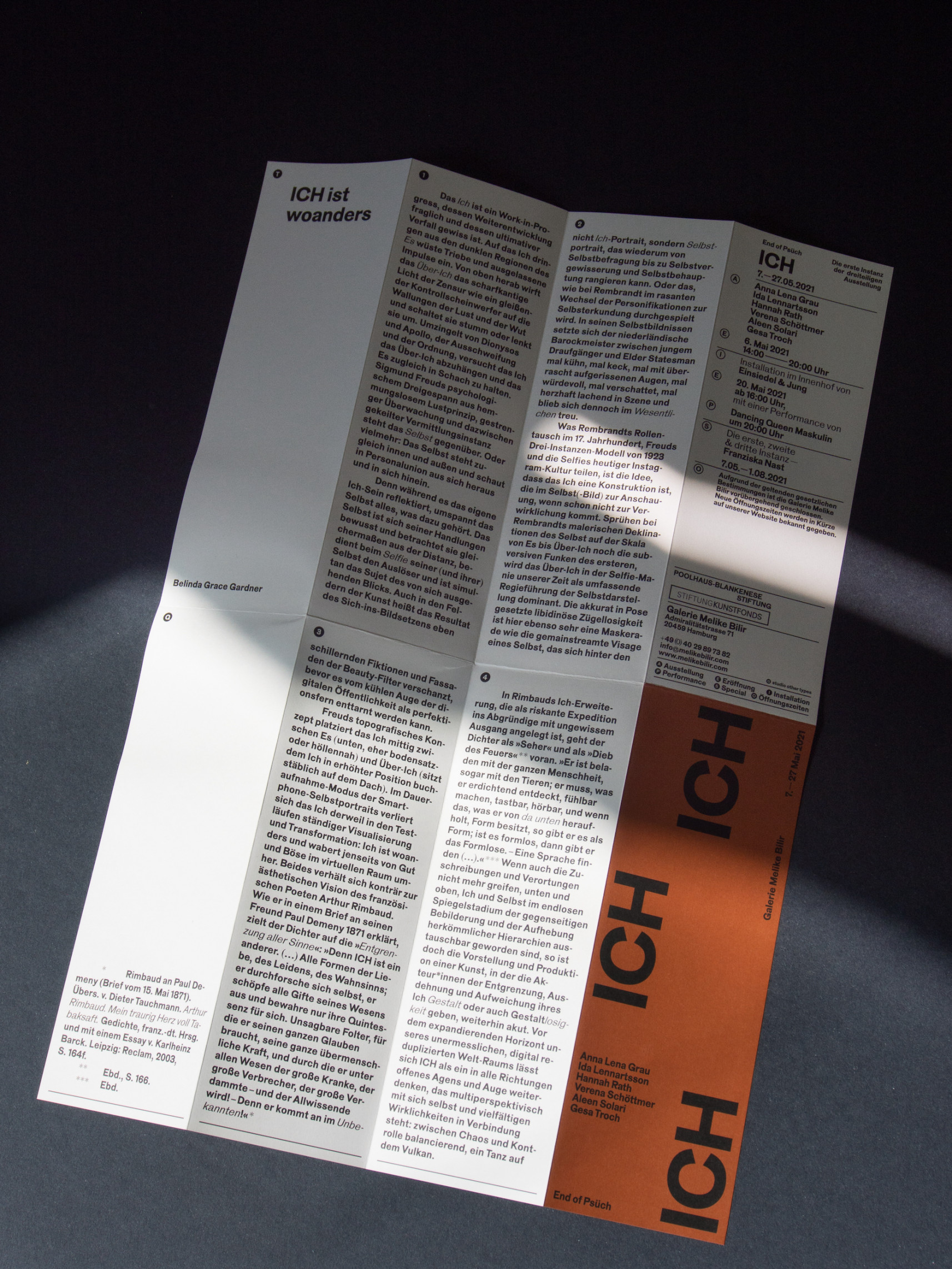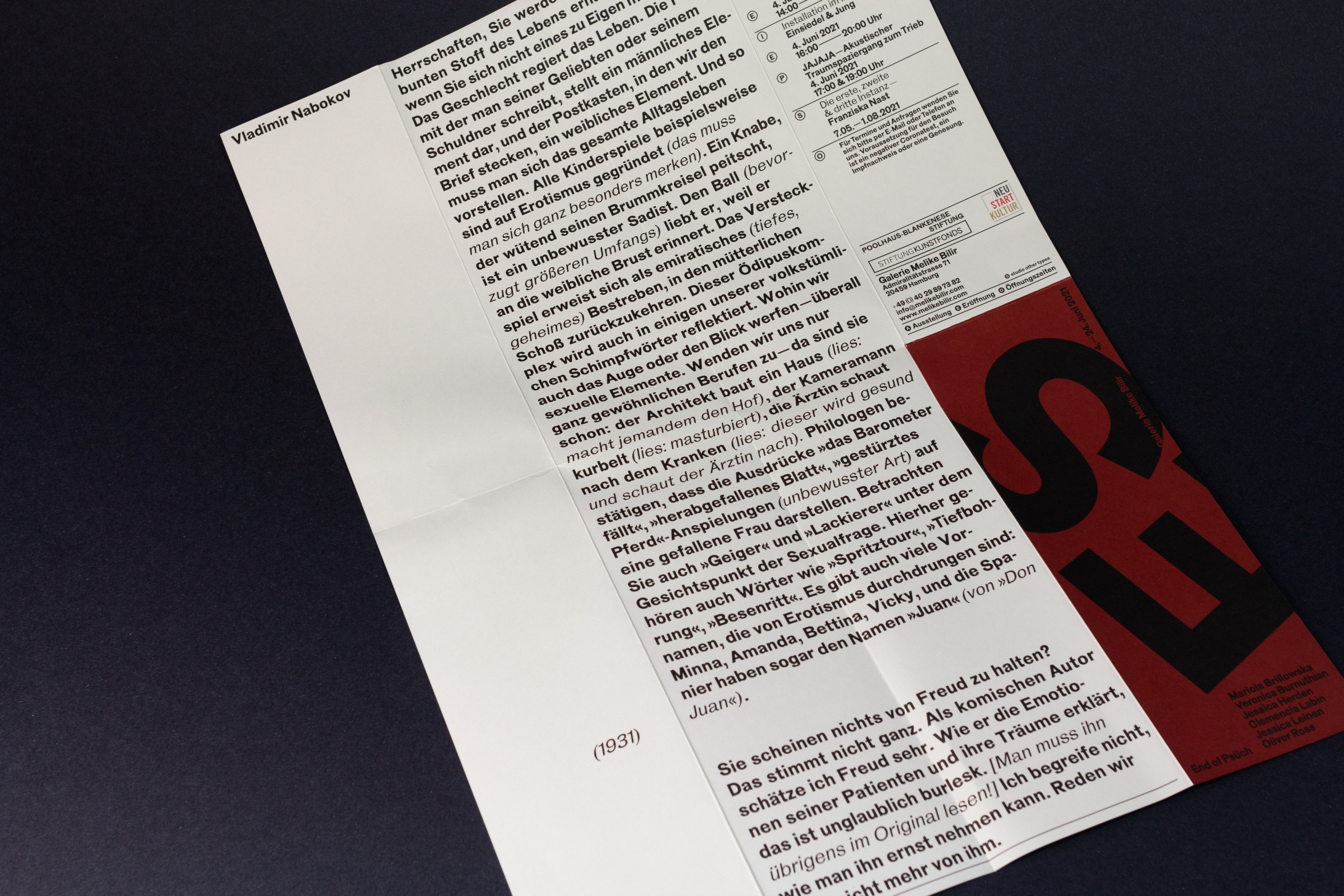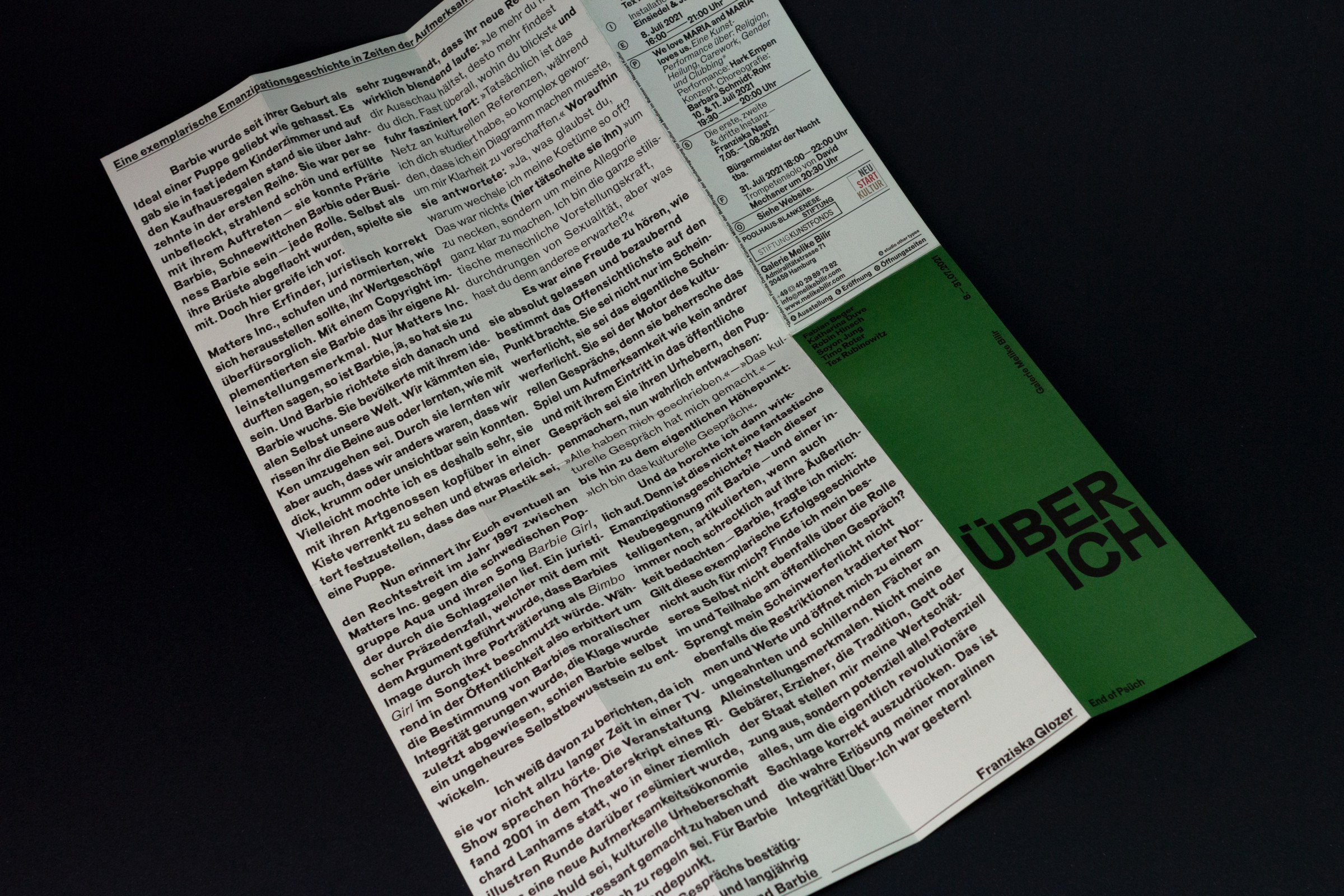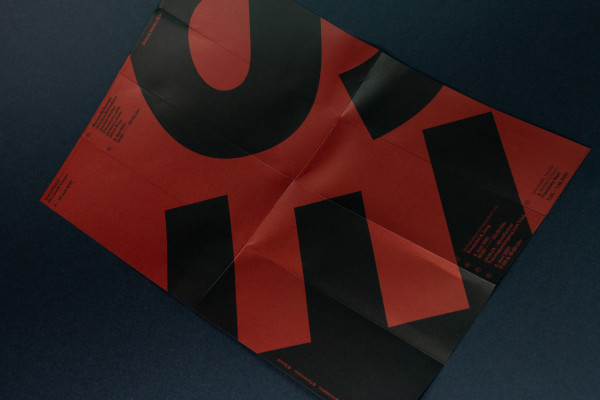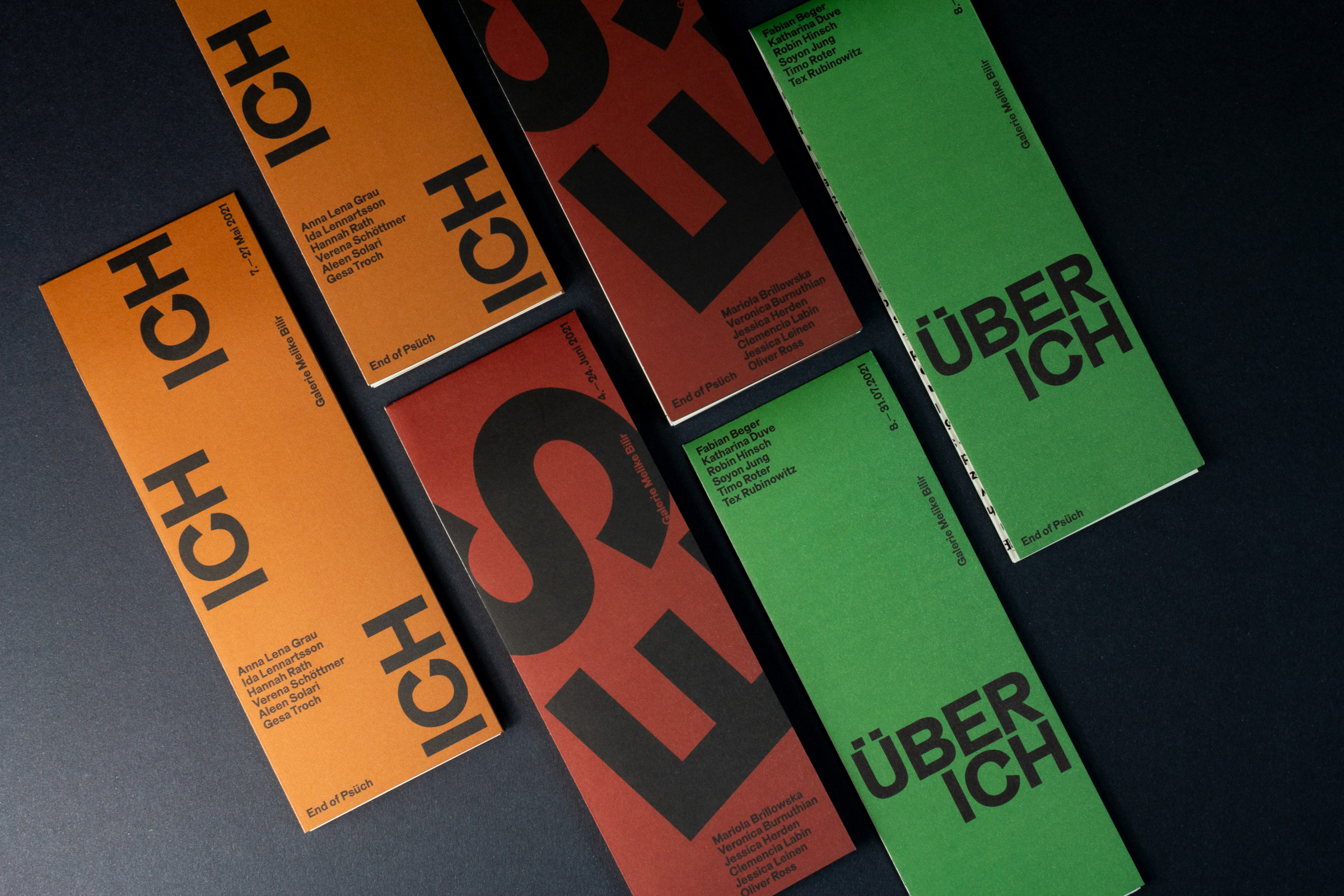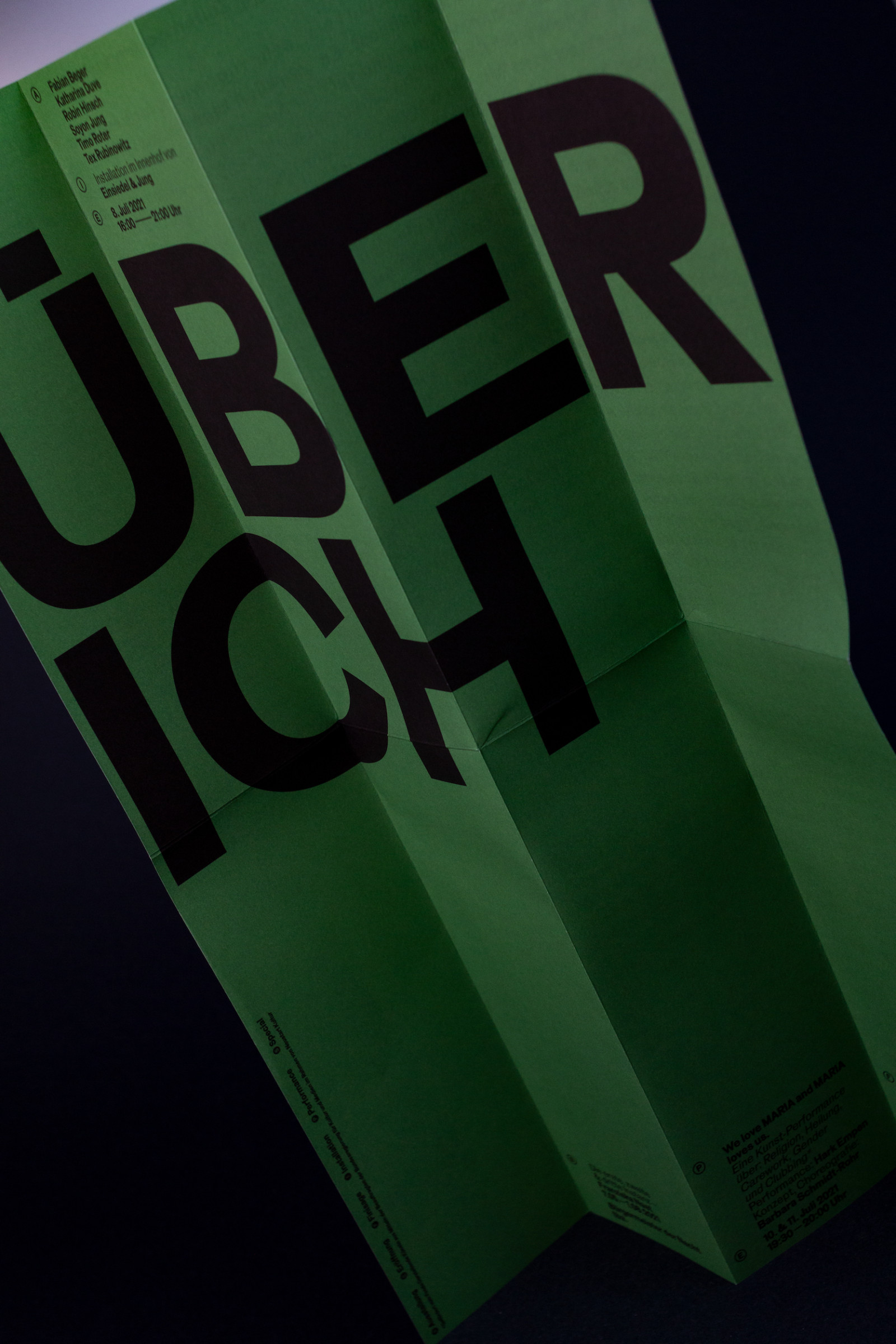
End of Psych: ICH – ES – ÜBER ICH
Booklet
End of Psych is an exhibition dealing with art revolving around idea of the three instance of the Freud’s psychoanalysis.
The first exhibition ICH is the ego in Freud’s psychoanalytical theory — it mediates between the instinctual desires of the id and the critical super-ego.
ES is the id — it refers to the unconscious structure whose content is the expression of drives (such as food drive, sex drive, death drive), needs (need for recognition, need to be accepted) and affects (envy, hate, trust, love). Central are the basic drives, the sexual drive (also “libido”) and the destructive drive (also “destrudo”).
ÜBER ICH is the Super-Ego — it refers to the unconscious structure in which social norms, values, obedience, morality, and thus, as an instance of command and prohibition, conscience are located.
The flyers visually represent these three instances in layout, typography and color. Red reflects the unconscious structures in ES whereas the green stands for the norms and values of the ÜBER ICH. Both colors merge together in a brown for the mediating ICH.
Typeface: BT Grotesk by Scott Vander Zee